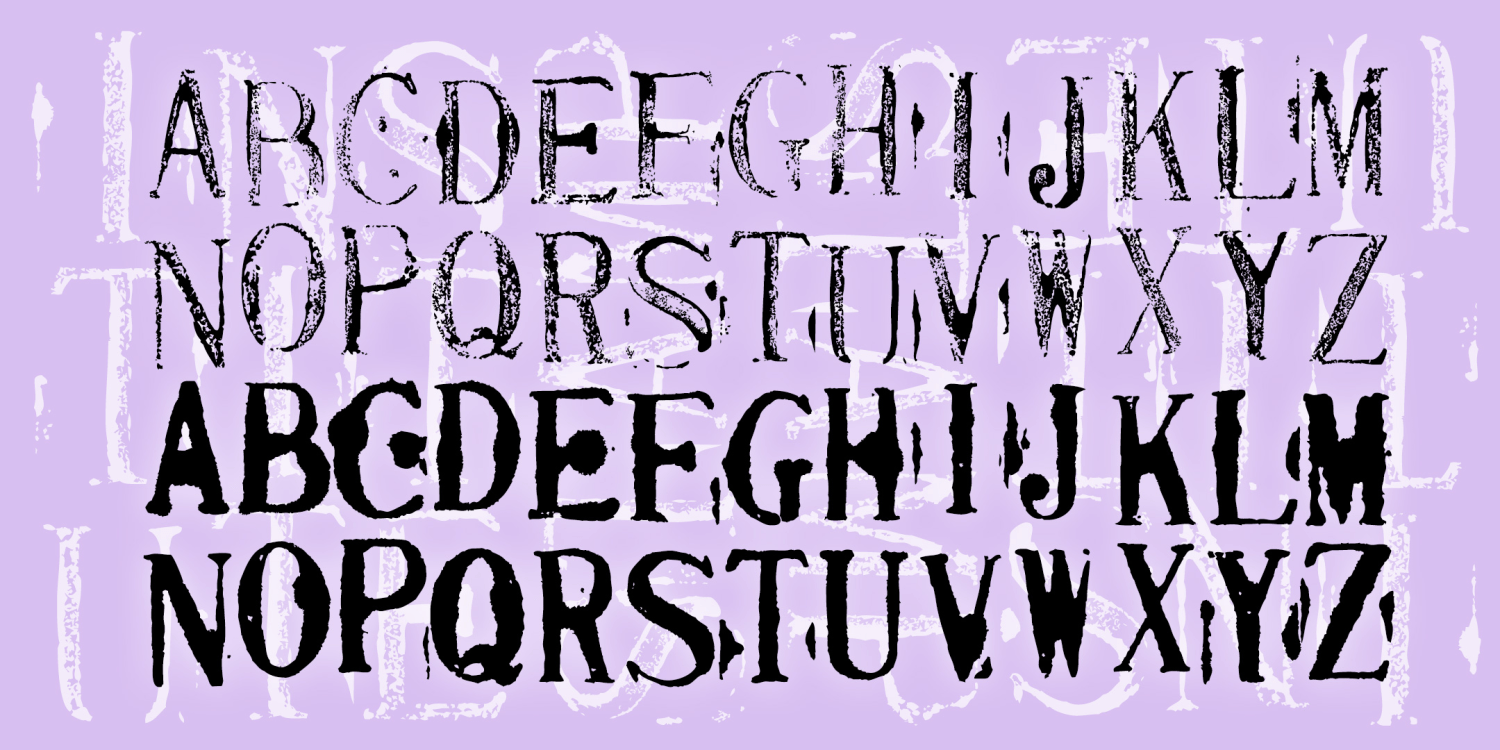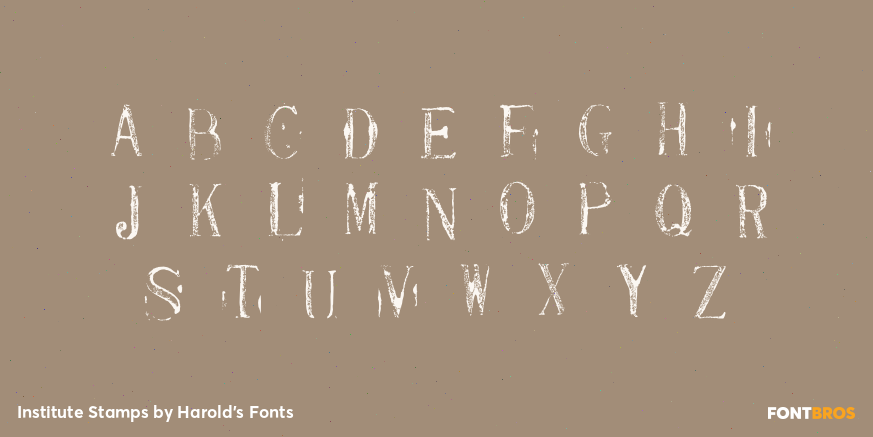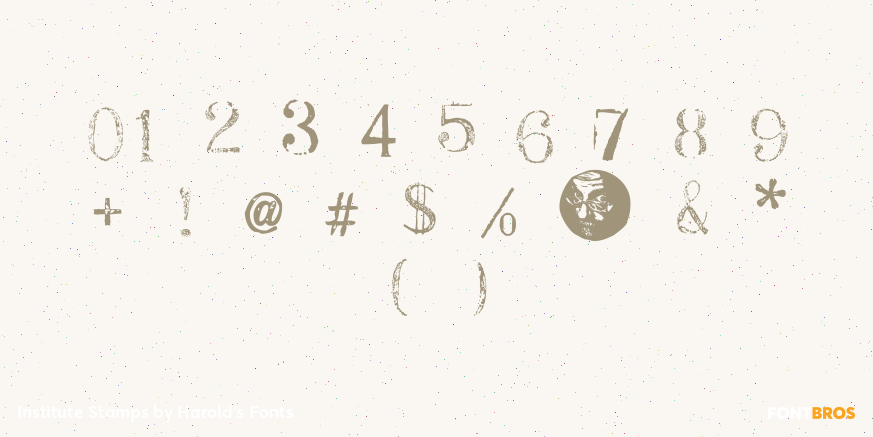
Institute Stamps
A monospaced rubber stamp font that emphasizes the primitiveness of the medium, suggesting a telegram or other old machine print. Working with a set of cheap, imported toy stamps, I printed them deliberately to include variation and accident. The uppercase positions contain dark inky characters; the lowercase, lighter and drier ones, which can be used together or separately.